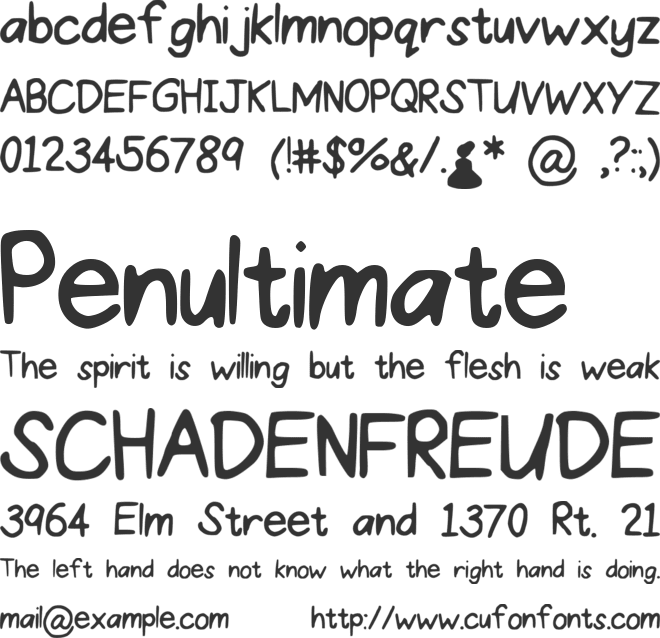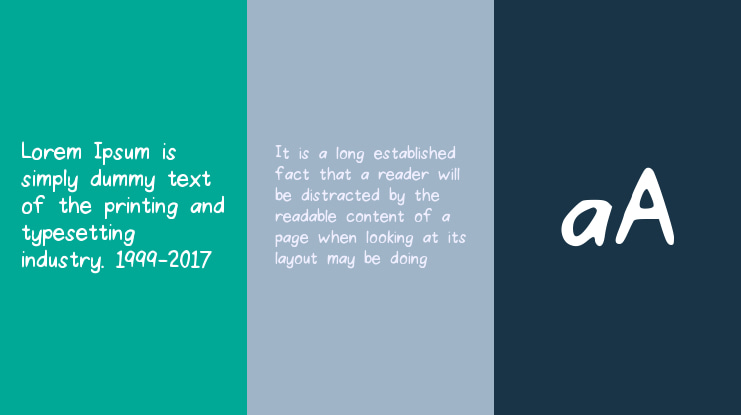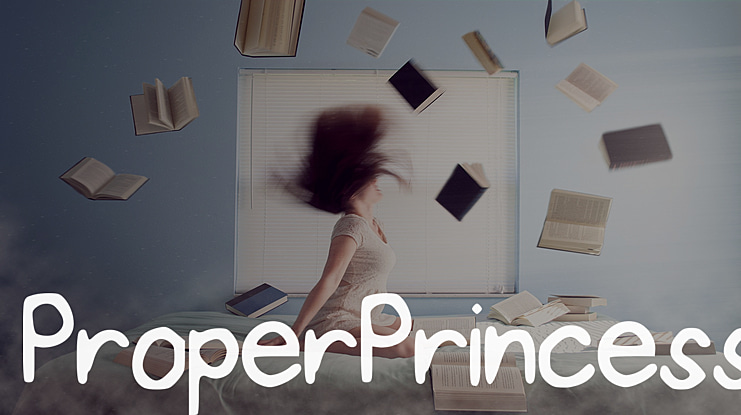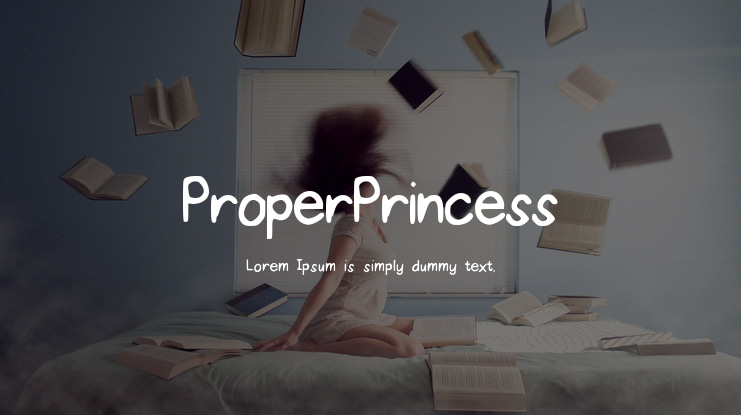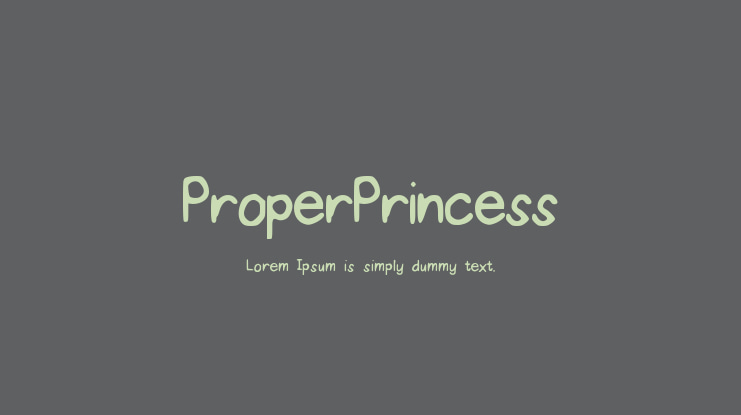
ProperPrincess Font
A royal font has arrived!
Proper Princess is a royalty-exclusive font which includes letters A-Z, basic punctuation marks and four princess doodles!
Created by MyScriptFont.com